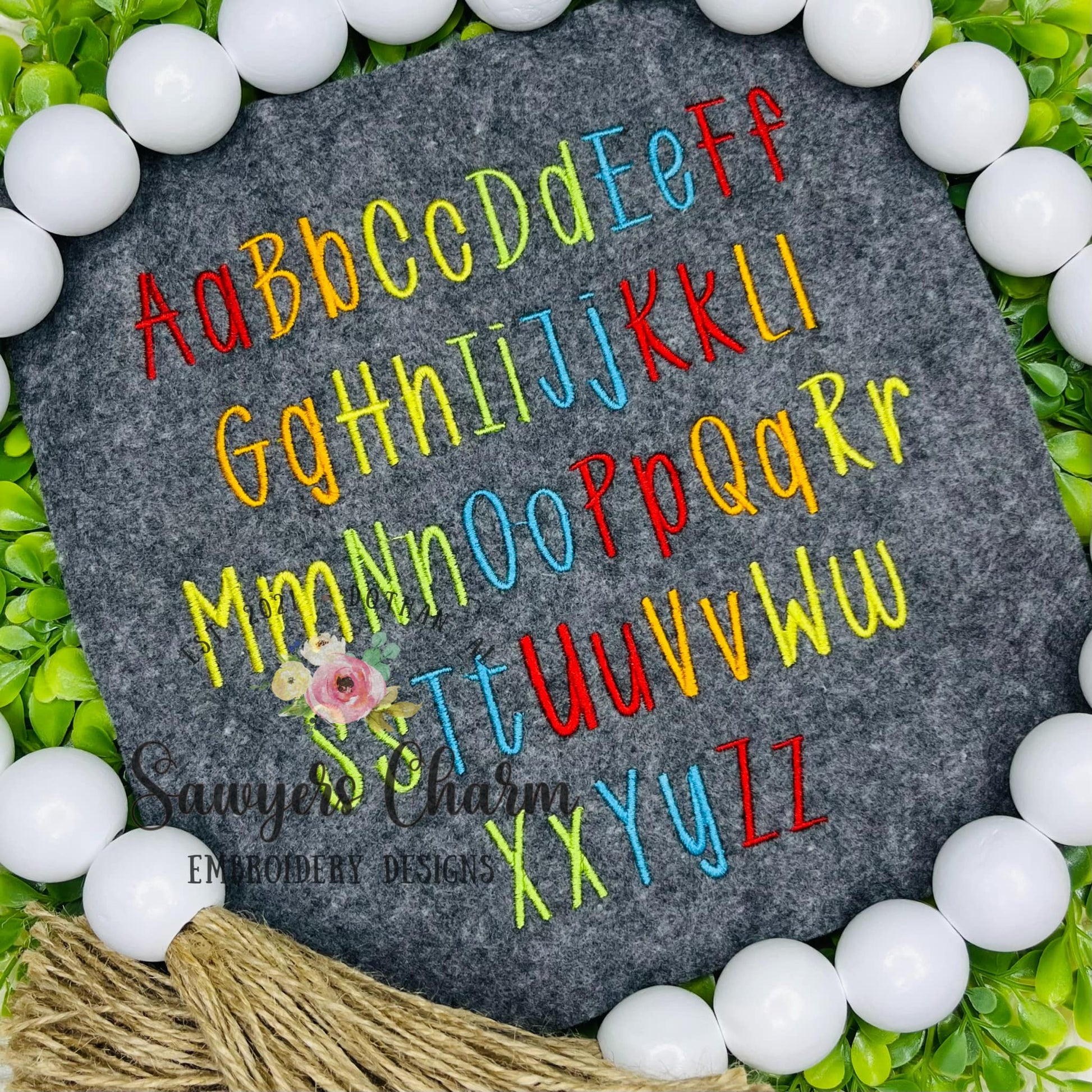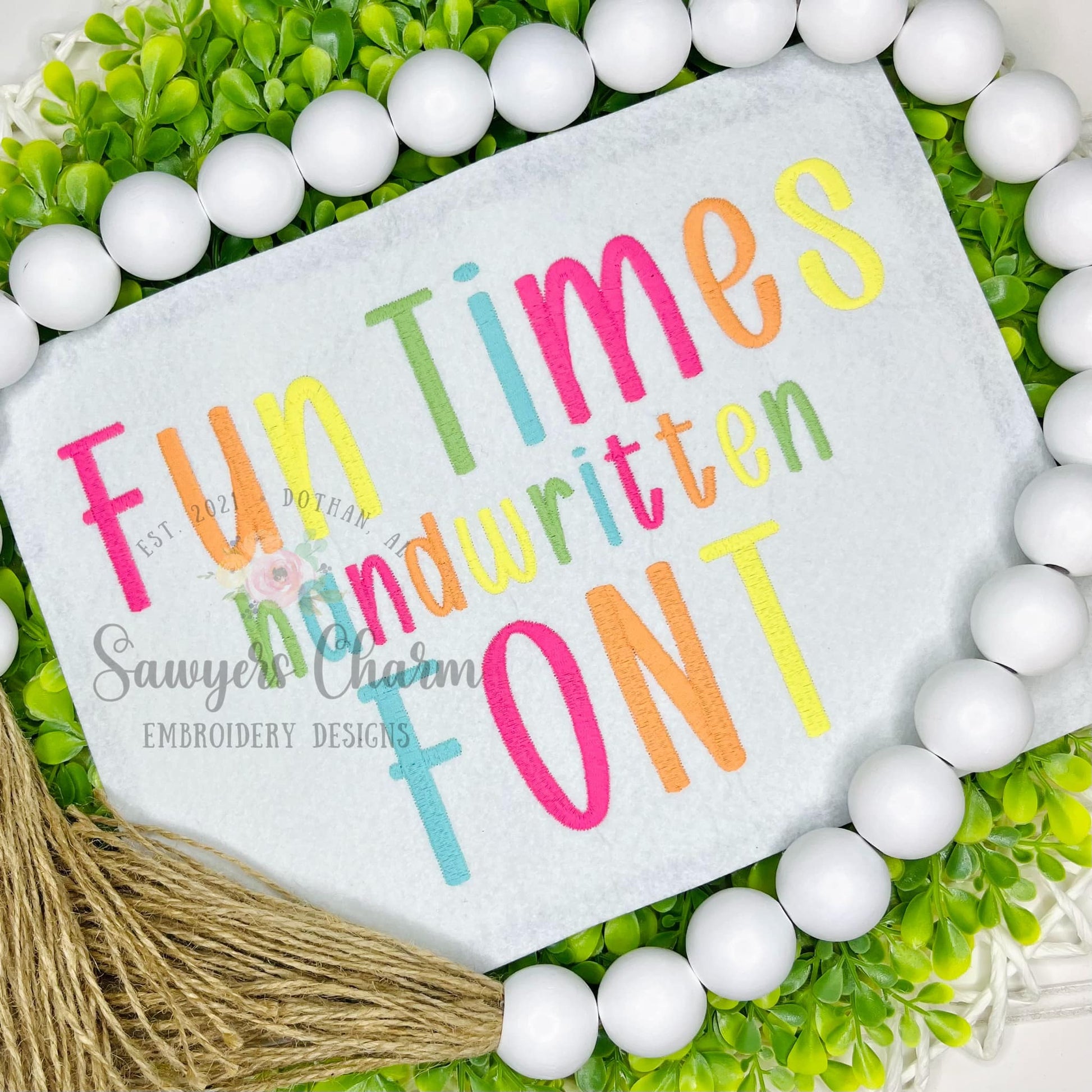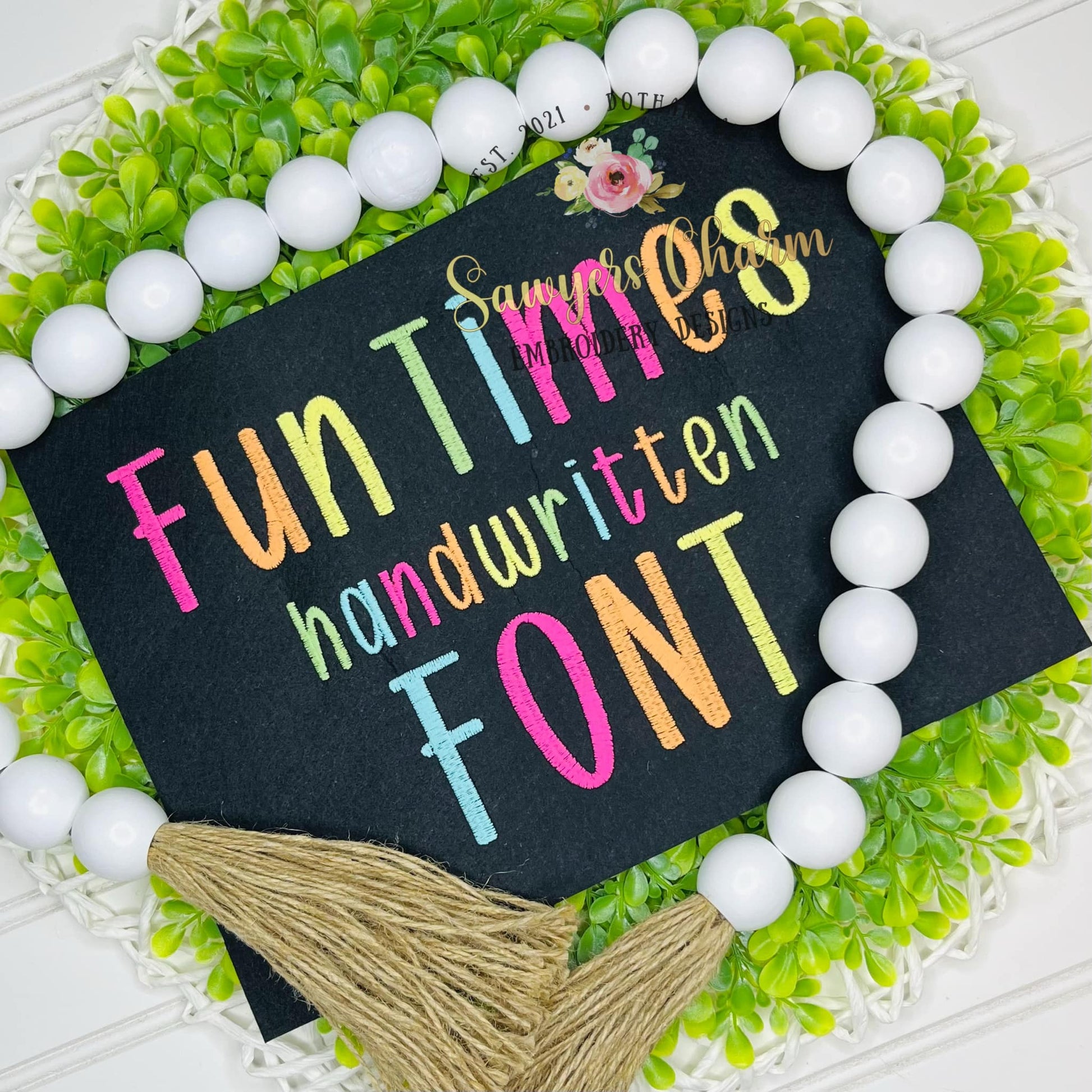
Fun Times satin stitch handwritten machine embroidery font, 1", 1.25", 1.5", 1.75", 2", 2.25", and 2.5", BX included, perfect for monograms
This embroidery font comes in 7 sizes....1", 1.25", 1.5", 1.75", 2", 2.25", and 2.5". This is a satin stitch font. This has all 26 capital and lowercase letters in the alphabet. So many possibilities with this font! :)